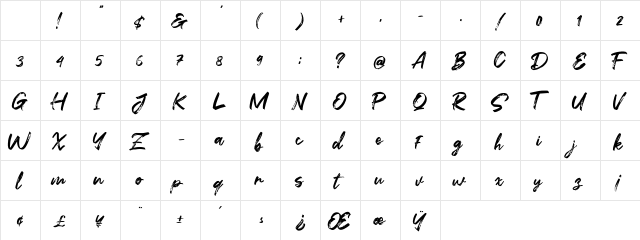
Complete Flashing Regular glyph index. Displaying only characters natively supported by Flashing Regular font.
Flashing is a composed and adaptable typeface that performs quietly and consistently across a wide range of design contexts.